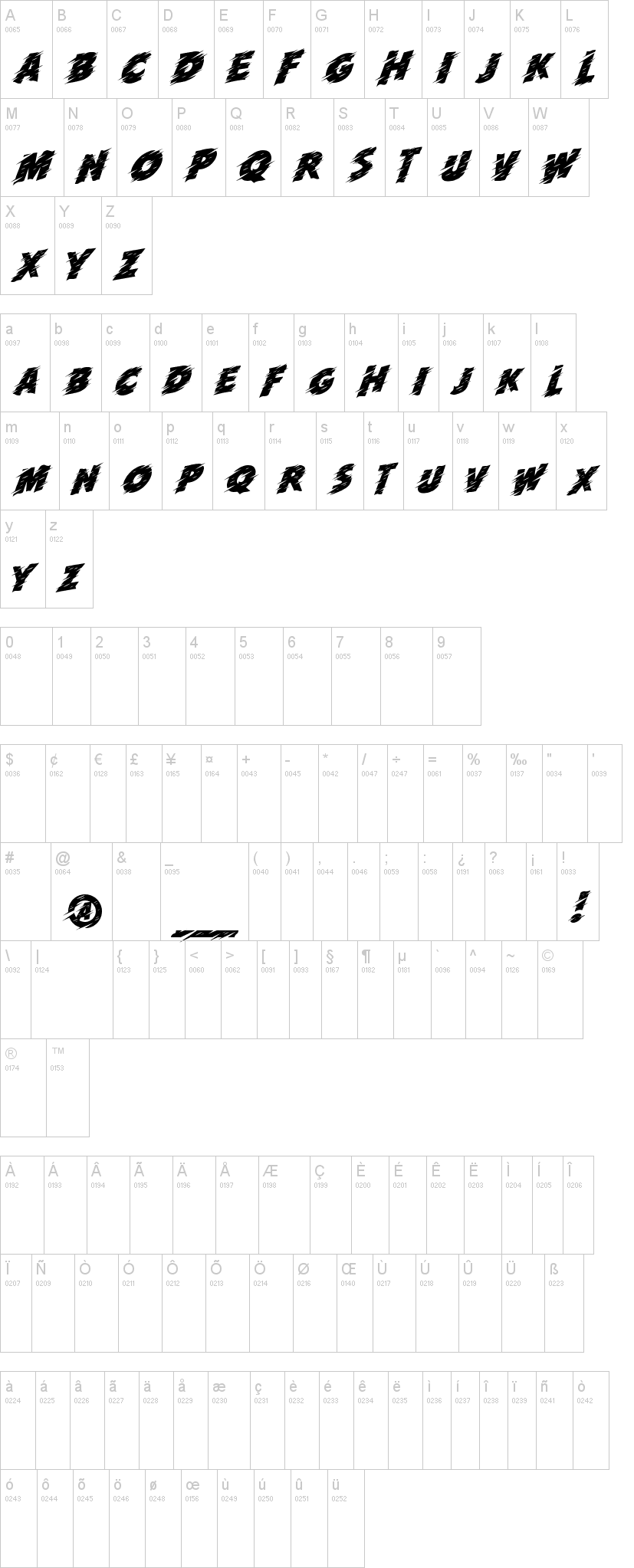
About this font:
Attention-seeking font! This slanted Sans is one of a kind. All the energy and stamina fitted from A-Z. A perfect build for your loud design projects. Now, with few effects applied you can bring your presentations to the next level! Even with flat colors, Run! Font pokes you in the eye.
Run! Font contains Capitals, Numerals and Punctuation. To form a great output, combine both uppercase and lowercase and see a better result.
Uses:
youtube thumbnail
blog header
brand identity
logo design
labels, posters etc.